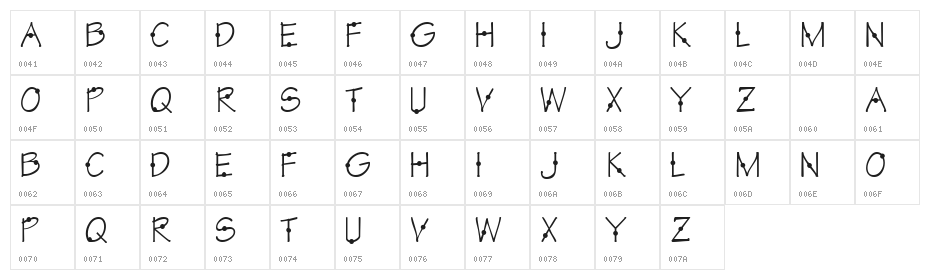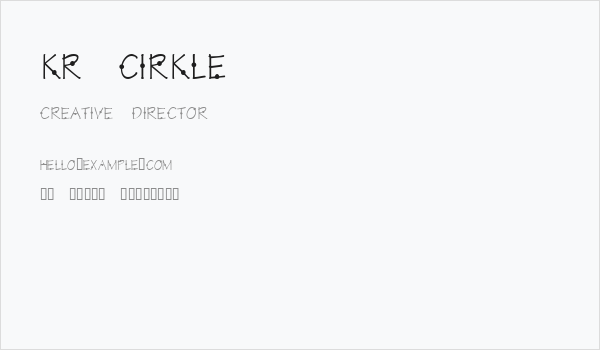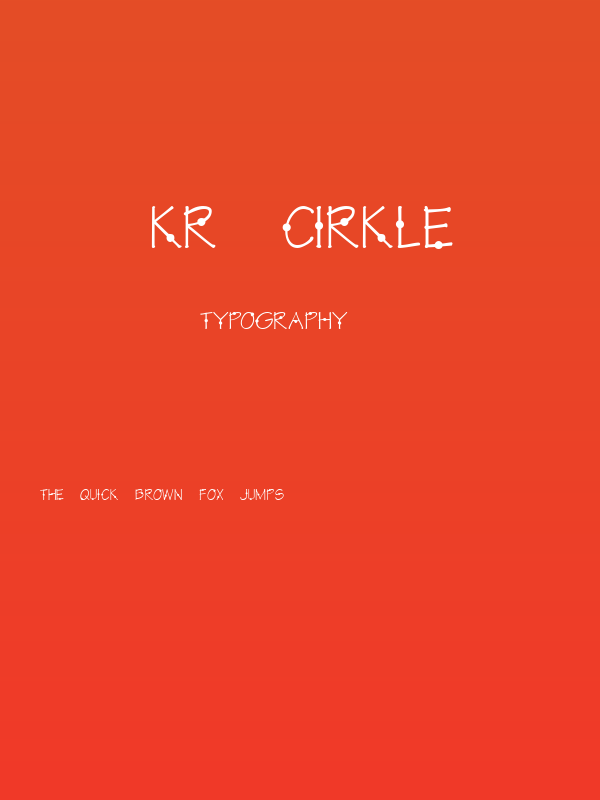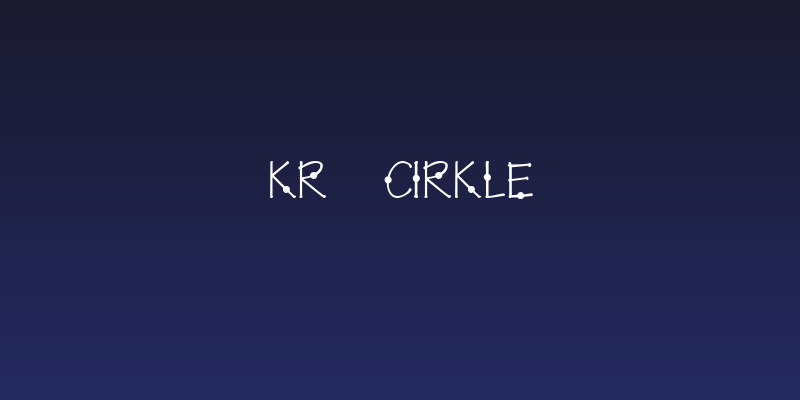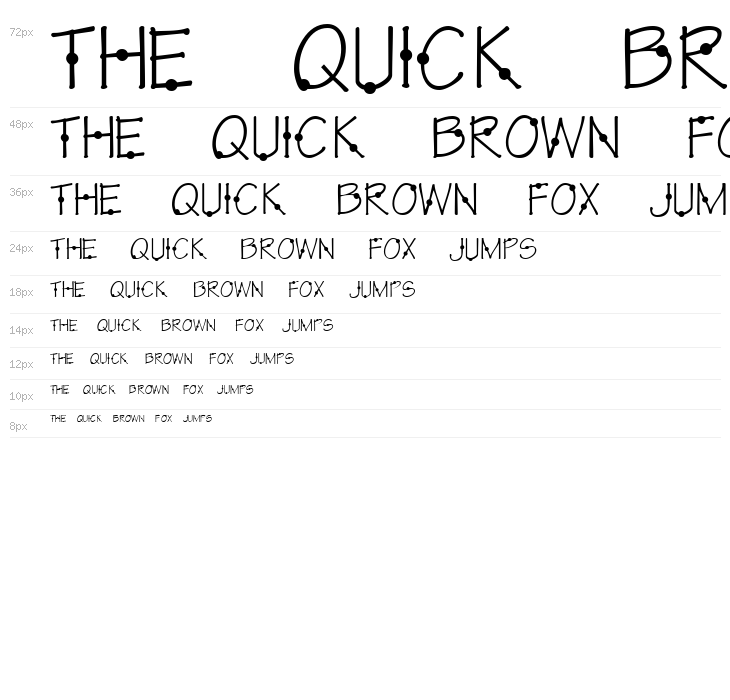
KR Cirkle Font
KR Cirkle Description
This font features a unique and playful design with circular elements incorporated into each character. The letters are primarily uppercase, with a consistent line weight and geometric shapes. The circular motifs add a whimsical touch, making it stand out as a decorative option. The overall appearance is modern and artistic, suitable for creative projects that require a distinctive and eye-catching typeface. The uniformity in the design ensures readability while maintaining its decorative appeal.